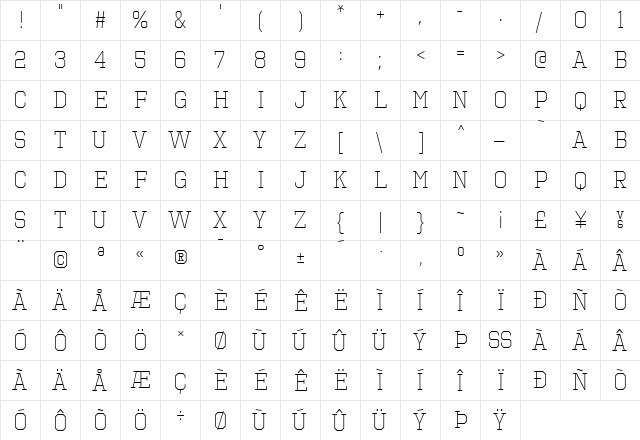
Octin Sports Light
Design Context for Octin Sports Typeface
Octin Sports brings high-energy athletic personality to the page — its confident, muscular forms are built for impact. The delicate stroke weight brings airiness and refinement to layouts.
A natural choice for gym brands, fantasy sports, jersey lettering, and action-driven headlines.
Font Pairing: Use alongside a condensed or geometric sans for supporting copy — keep the pairing bold, functional, and free of ornament.
Pro Tip: Use Octin Sports in all-caps headlines where its athletic energy can fully express itself. Pair with a solid, simple sans for supporting text.